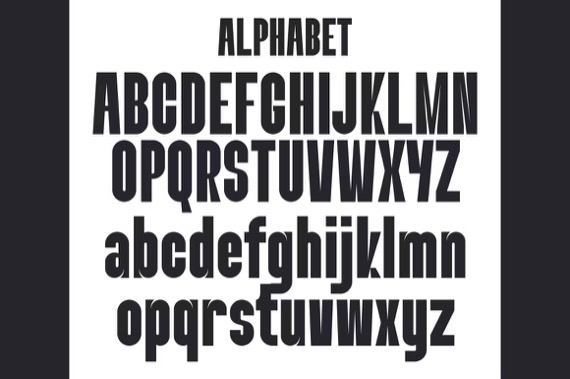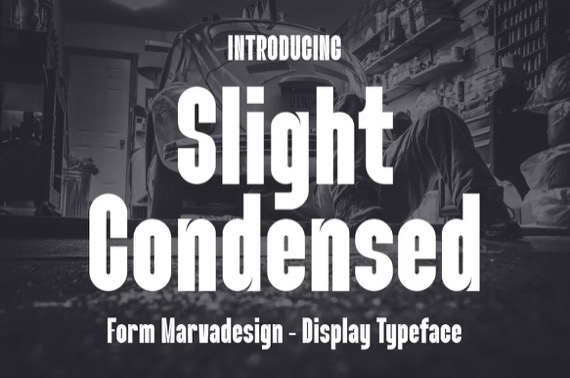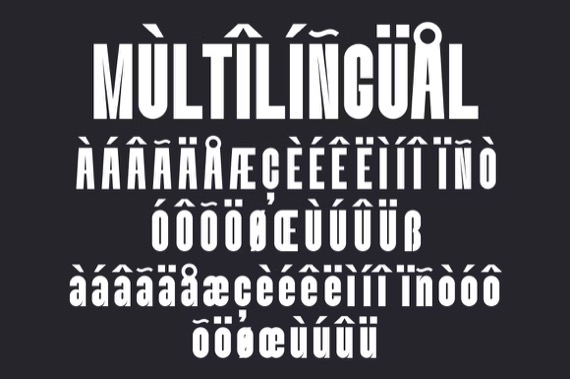
Slight Condensed is a chic and dazzling sans serif font with a bold and authentic display style. The font is suitable for any branding project like logo,Template Design, Product and many more. outstanding in a wide range of contexts.
Slight Condensed Sans Serif Font